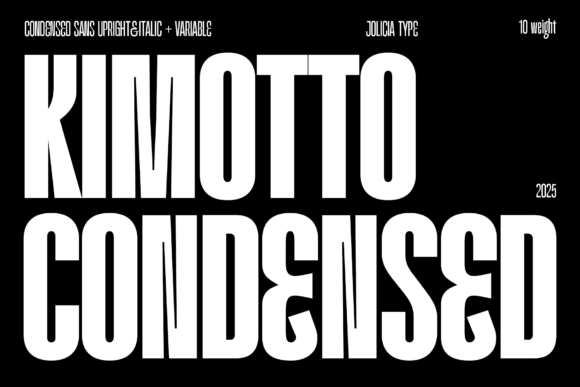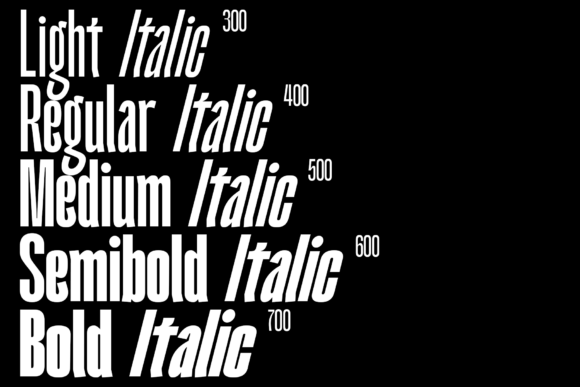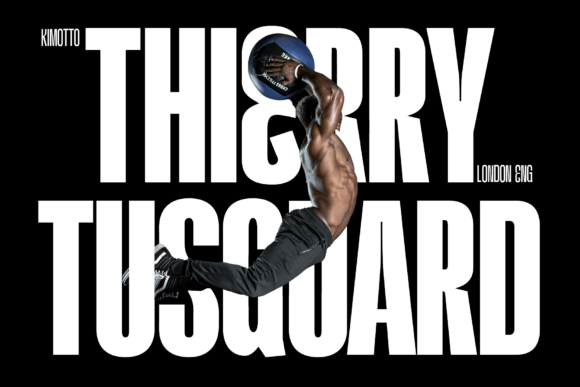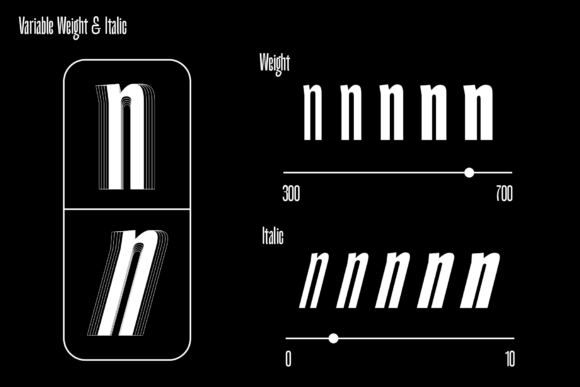
Kimotto Condensed Font
About the Kimotto Condensed Font
Elevate your designs with Kimotto Condensed Font, a font that combines sophistication with readability. Kimotto Condensed is a modern sans-serif condensed typeface designed to be both bold and space-efficient. With 10 weights ranging from Light to Bold, plus true Italics at a 15° angle, it offers maximum versatility for any design project.
Its sleek, narrow letterforms make Kimotto perfect for headlines, posters, branding, packaging, editorial layouts, and user interfaces where space and clarity matter most. Each character is carefully crafted to maintain high legibility, even in tight spaces.
Available in Variable Font format, Kimotto allows smooth customization of weight and slant, giving you full control over your typography with a clean
Kimotto Condensed Font Usage Examples
Kimotto Condensed Font Example